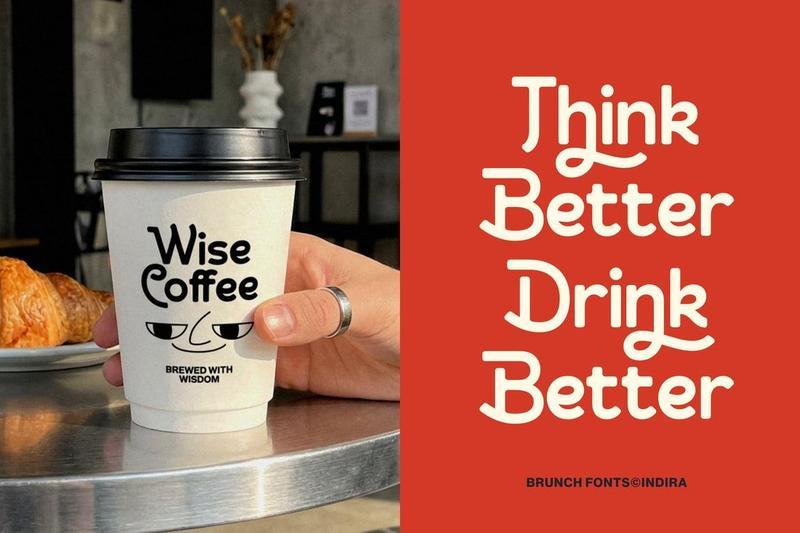
**Brunch** is a charming display font crafted for warm coffee branding, bakery packaging, cafe menus, and modern restaurant visuals. With its soft curves, playful ligatures, and friendly retro feeling, this font brings a cozy personality to logos, posters, drink labels, dessert shops, brunch menus, and lifestyle food brands.
Designed to feel fresh, memorable, and inviting, Brunch works beautifully for coffee cups, croissant packaging, breakfast menus, burger shops, candy products, pizza promos, ice chocolate visuals, cooking content, kitchen branding, and social media graphics. Its expressive letterforms help every cafe, bakery, restaurant, and food brand create a delicious identity with a fun and premium touch.